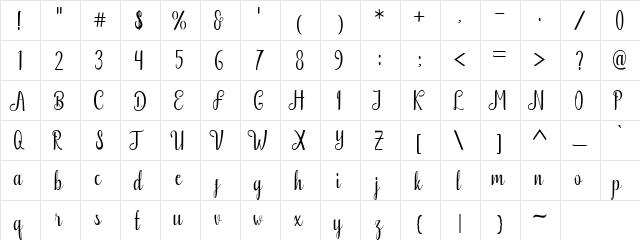
Cempalakuneng Free Regular
Design Context for Cempalakuneng Free Typeface
Cempalakuneng Free is a composed and adaptable typeface that performs quietly and consistently across a wide range of design contexts.